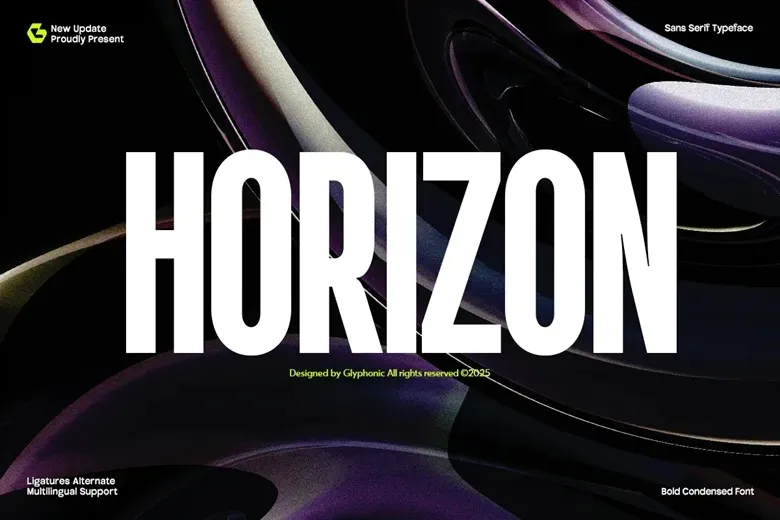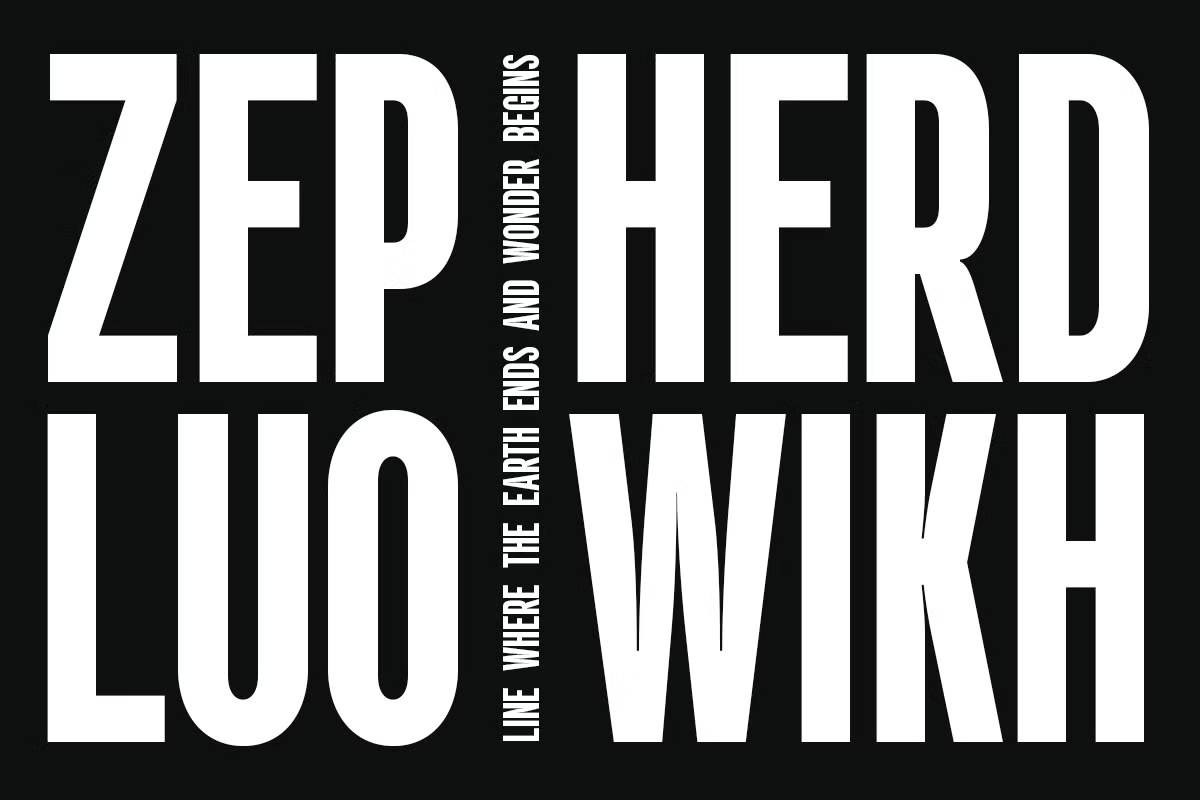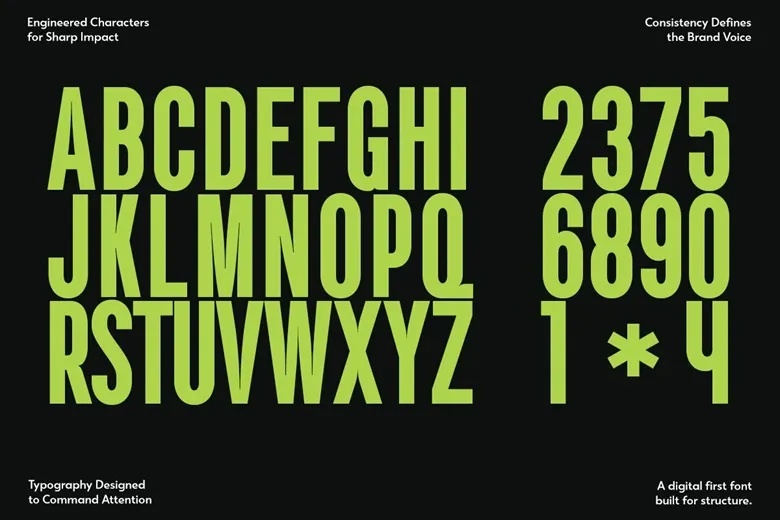
GC Horizon Font
Horizon is a sleek, condensed typeface that fuses bold modernism with an edgy flair. Designed to stand out, it’s perfect for impactful headlines, branding, logos, packaging, and editorial layouts. Horizon’s high-contrast strokes, refined sans-serif structure, and futuristic vibe bring both personality and sophistication to any project.
Whether you’re crafting fashion-forward designs, lifestyle visuals, or artistic compositions, Horizon delivers striking results with class and versatility.